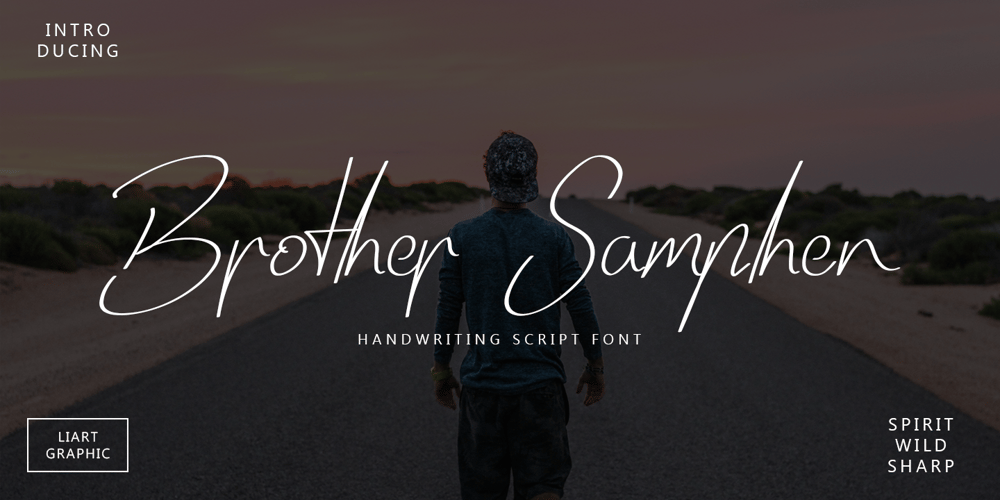
Brother Samphen
Brother Samphen font
Brother Samphen Font Family was designed by Ali Sifak Muftari and published by Liartgraphic. Brother Samphen contains 1 styles and family package options. Brother Samphen is a hand-written script in with a sharp, young, spirited look. It includes multiple alternate characters.